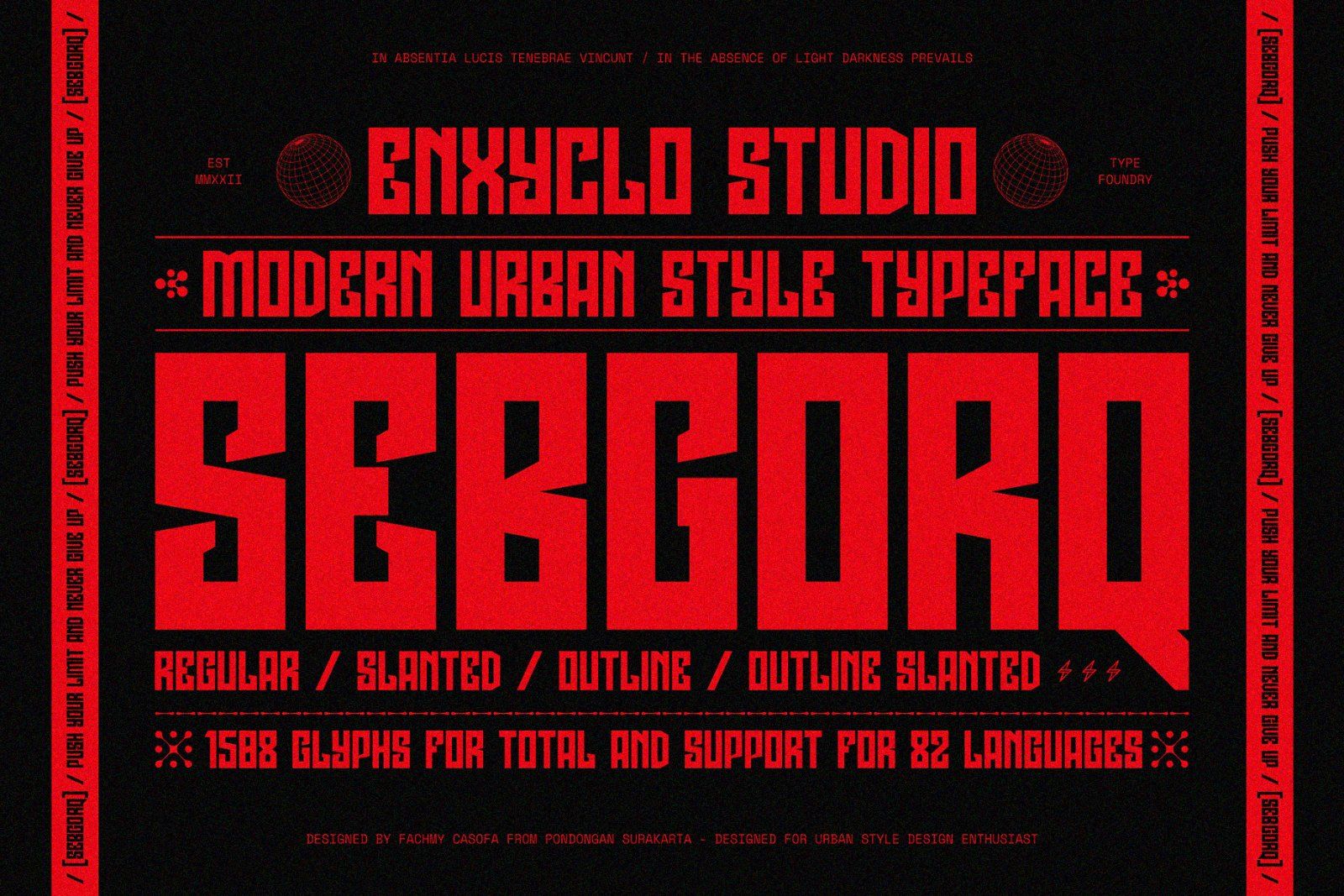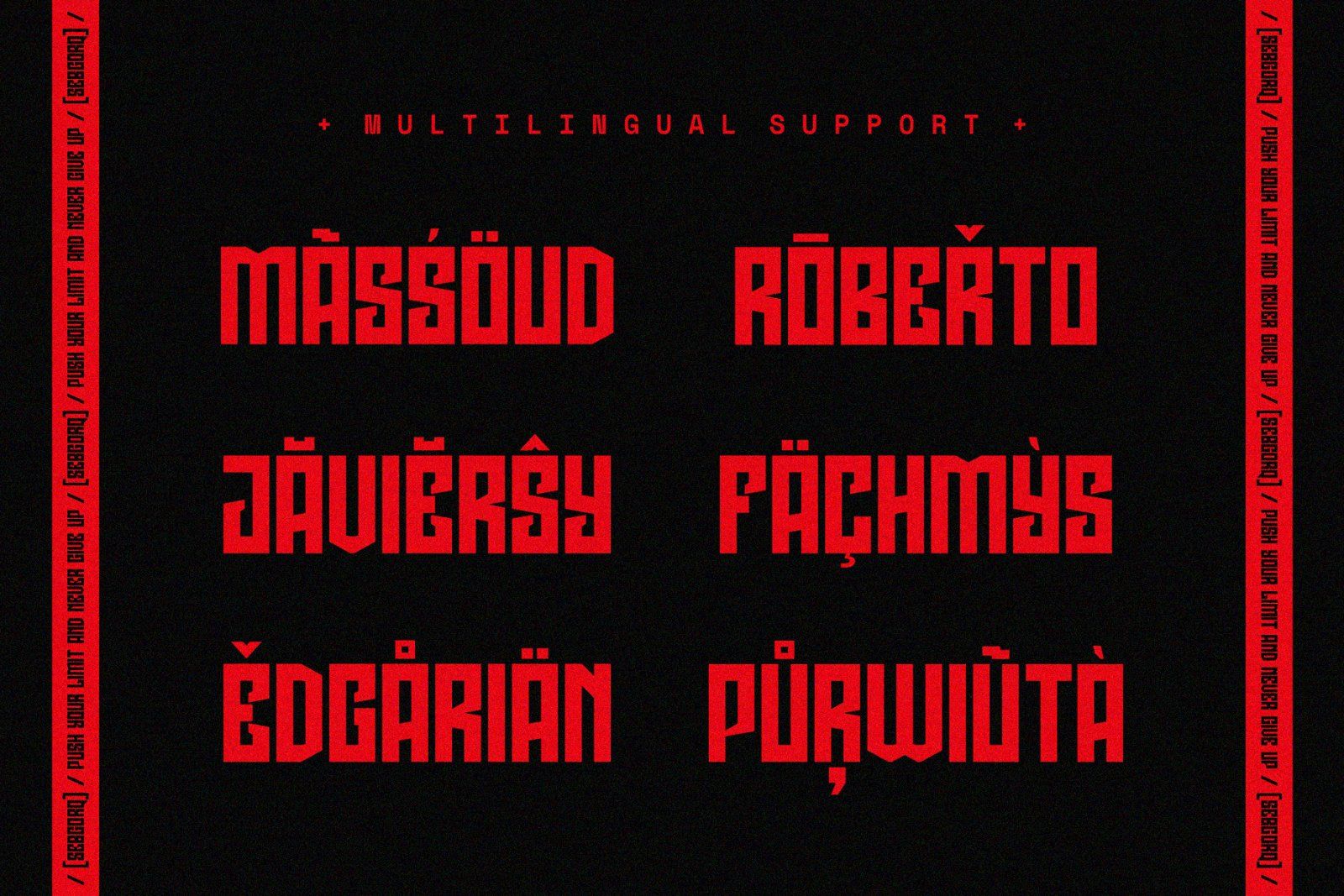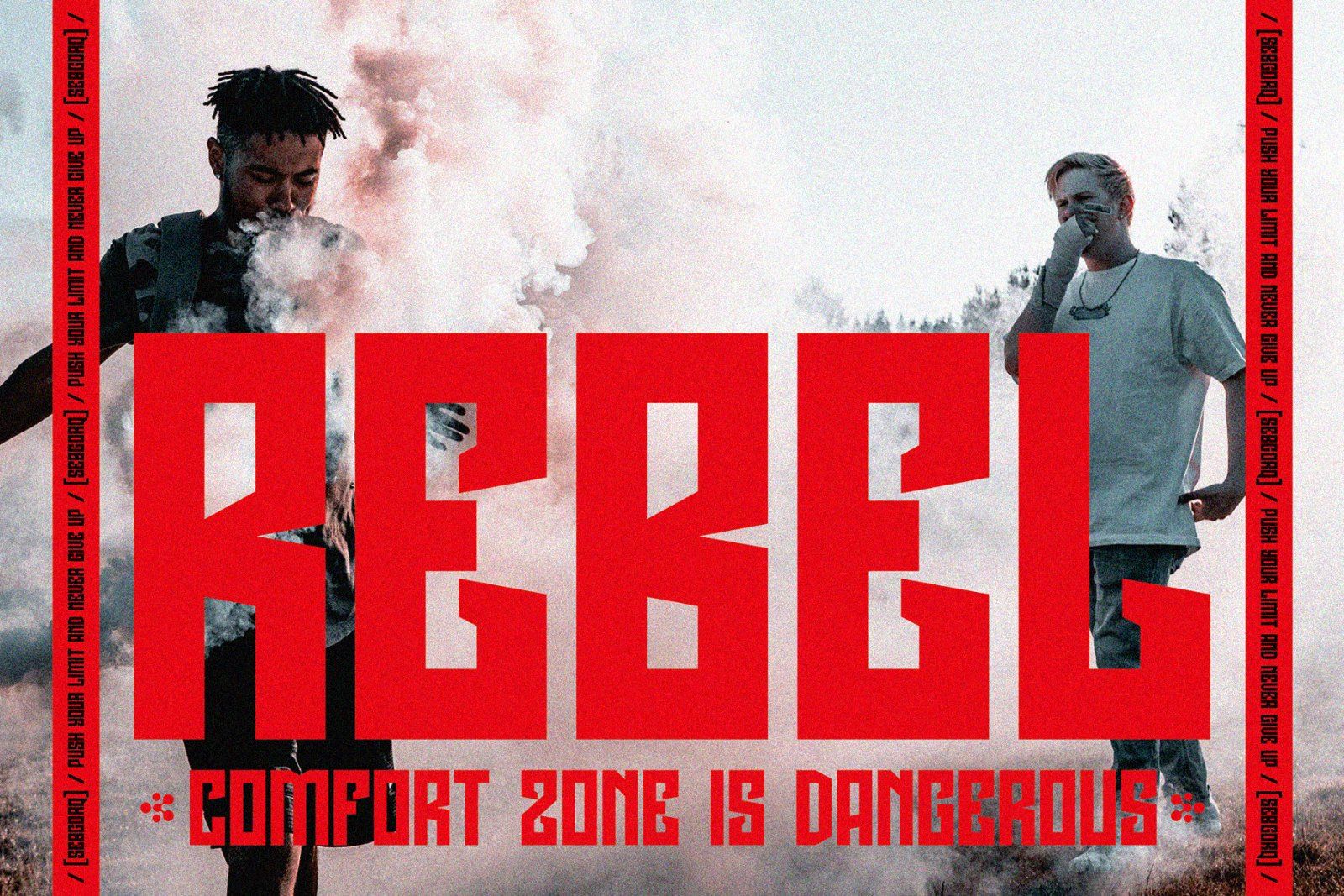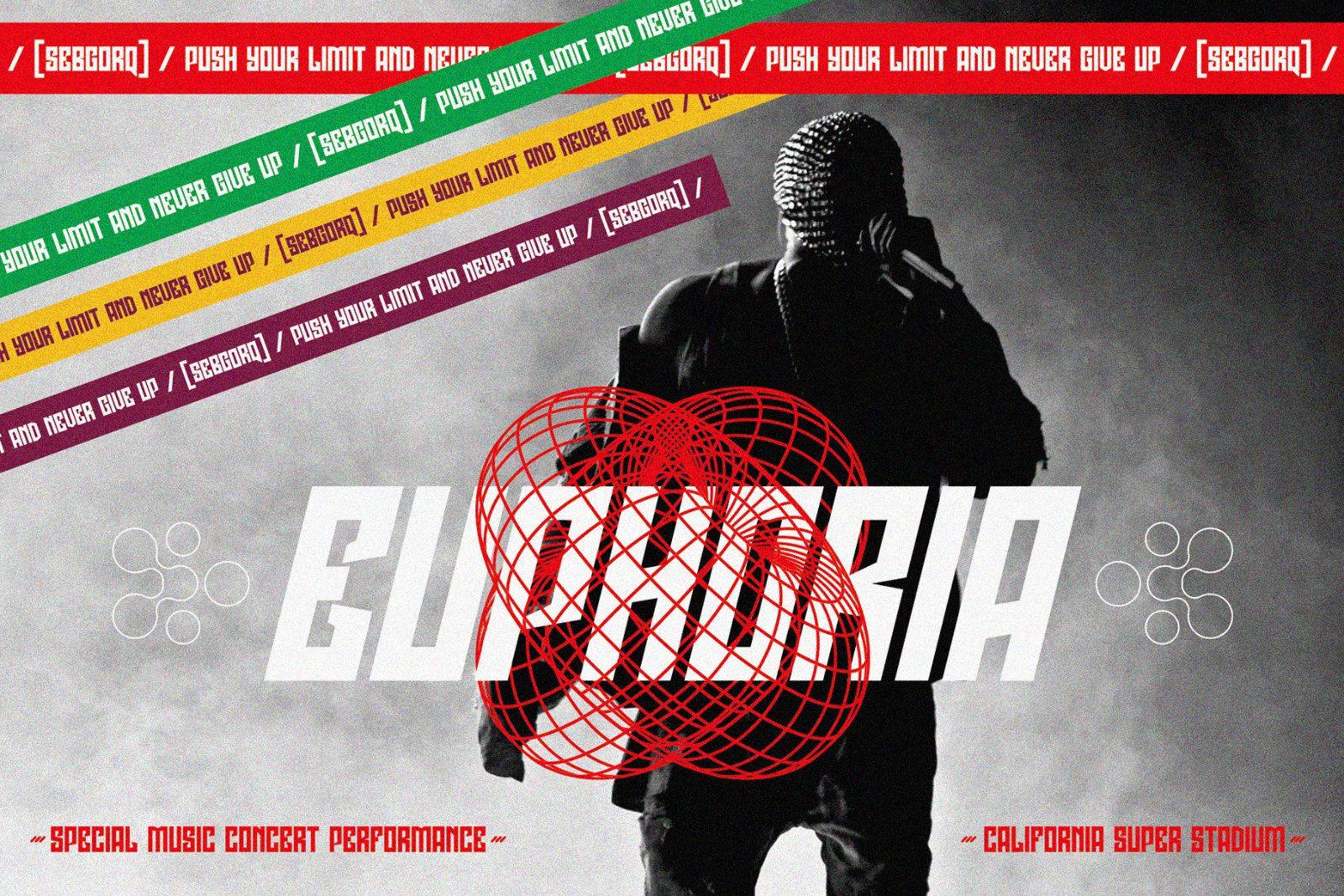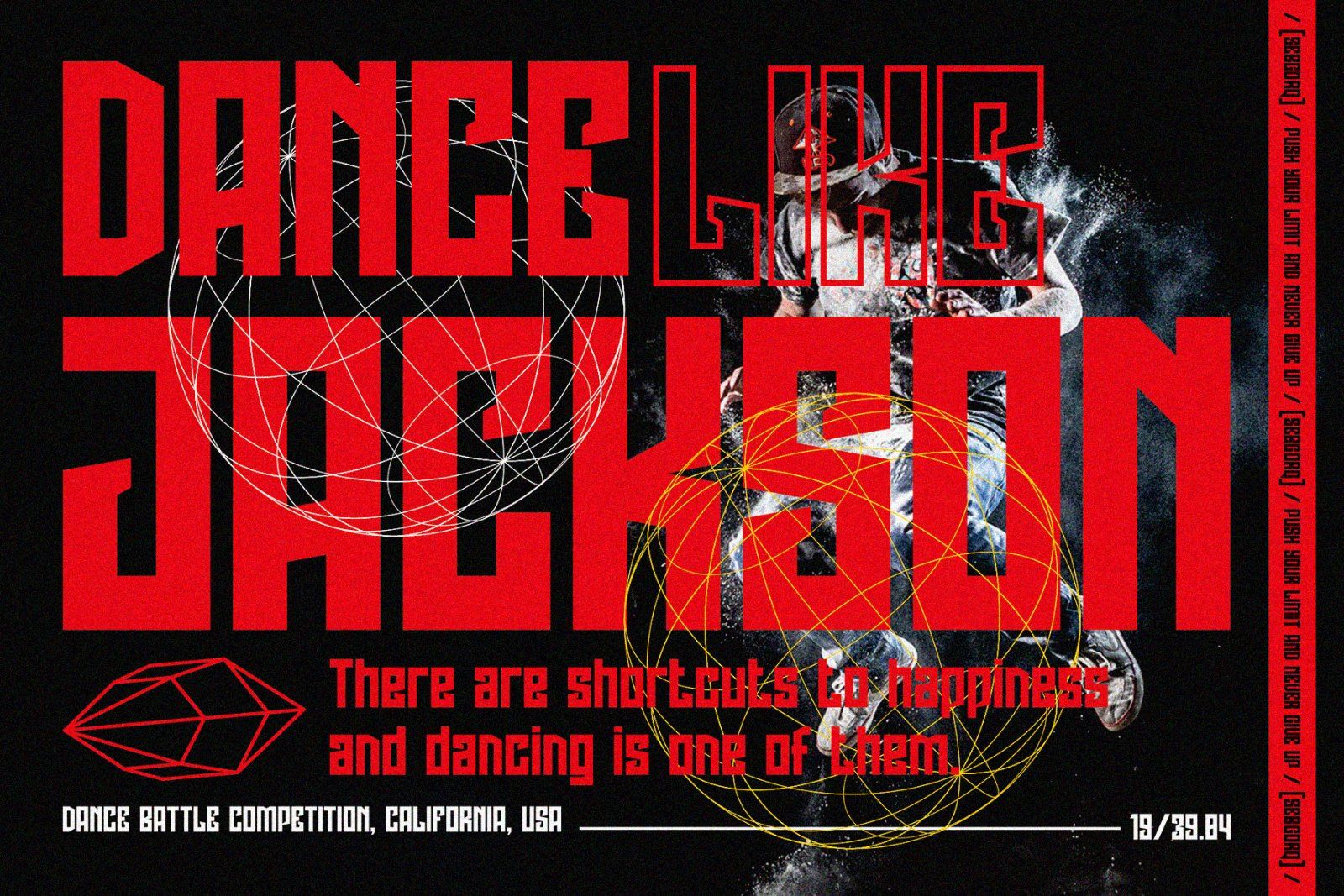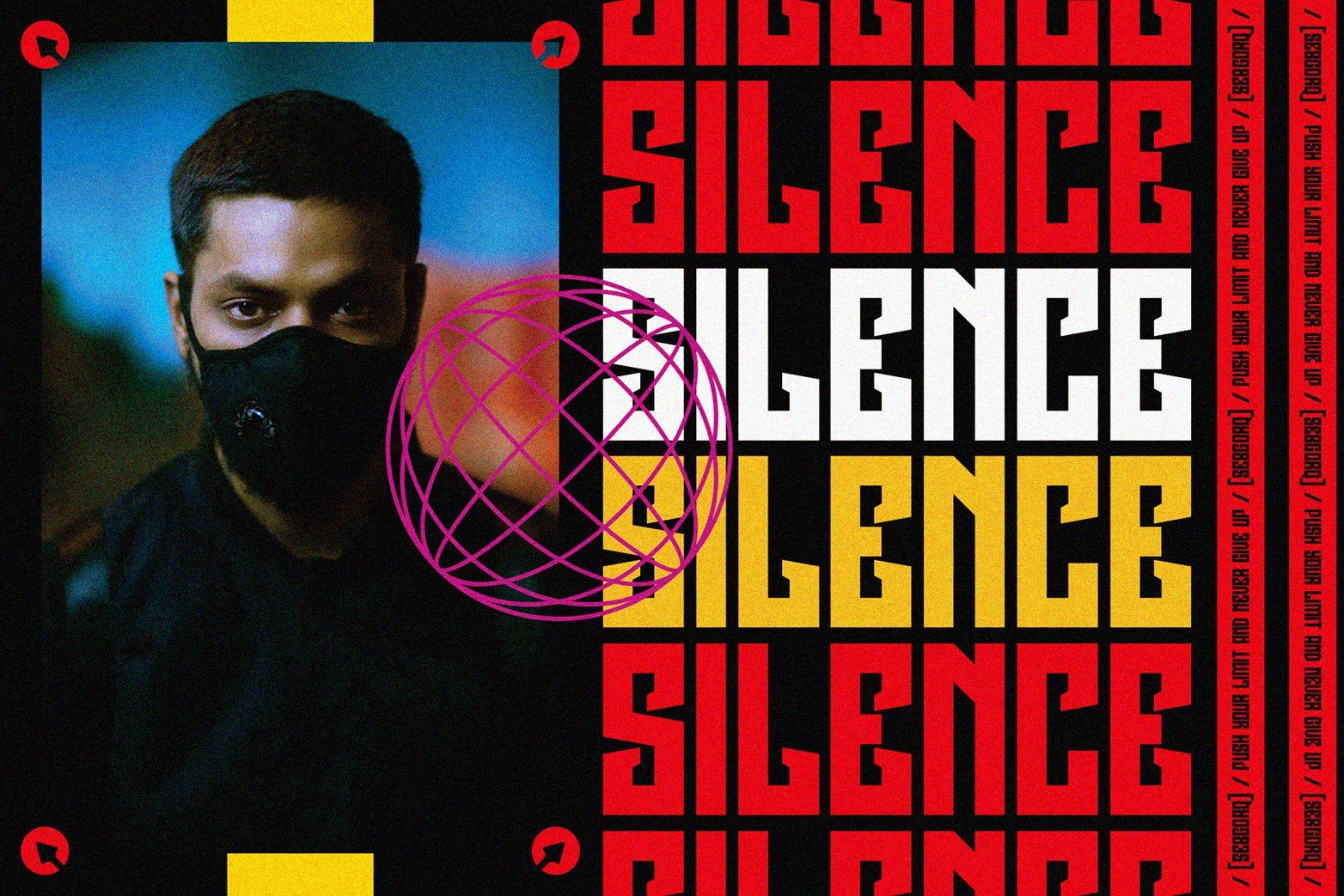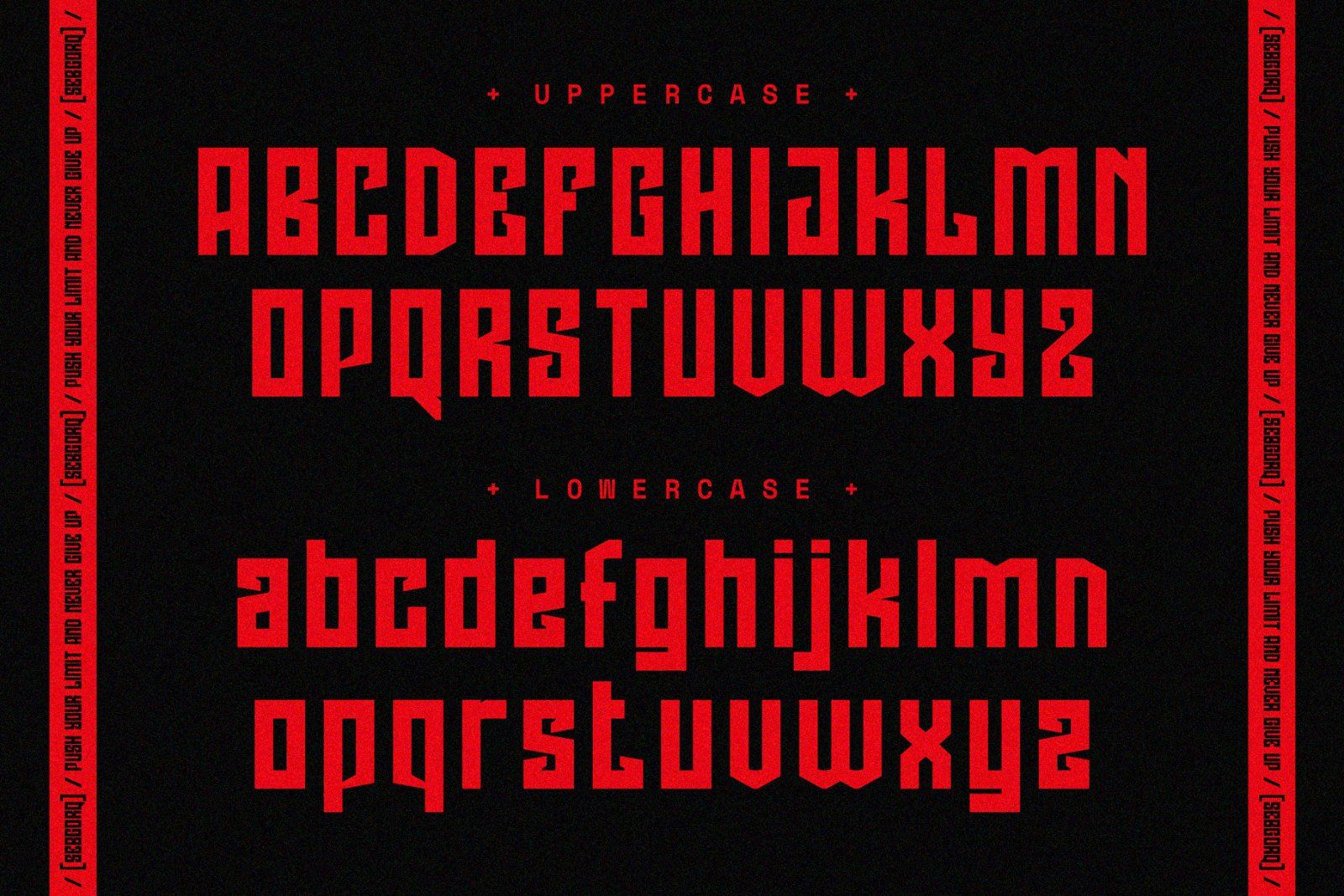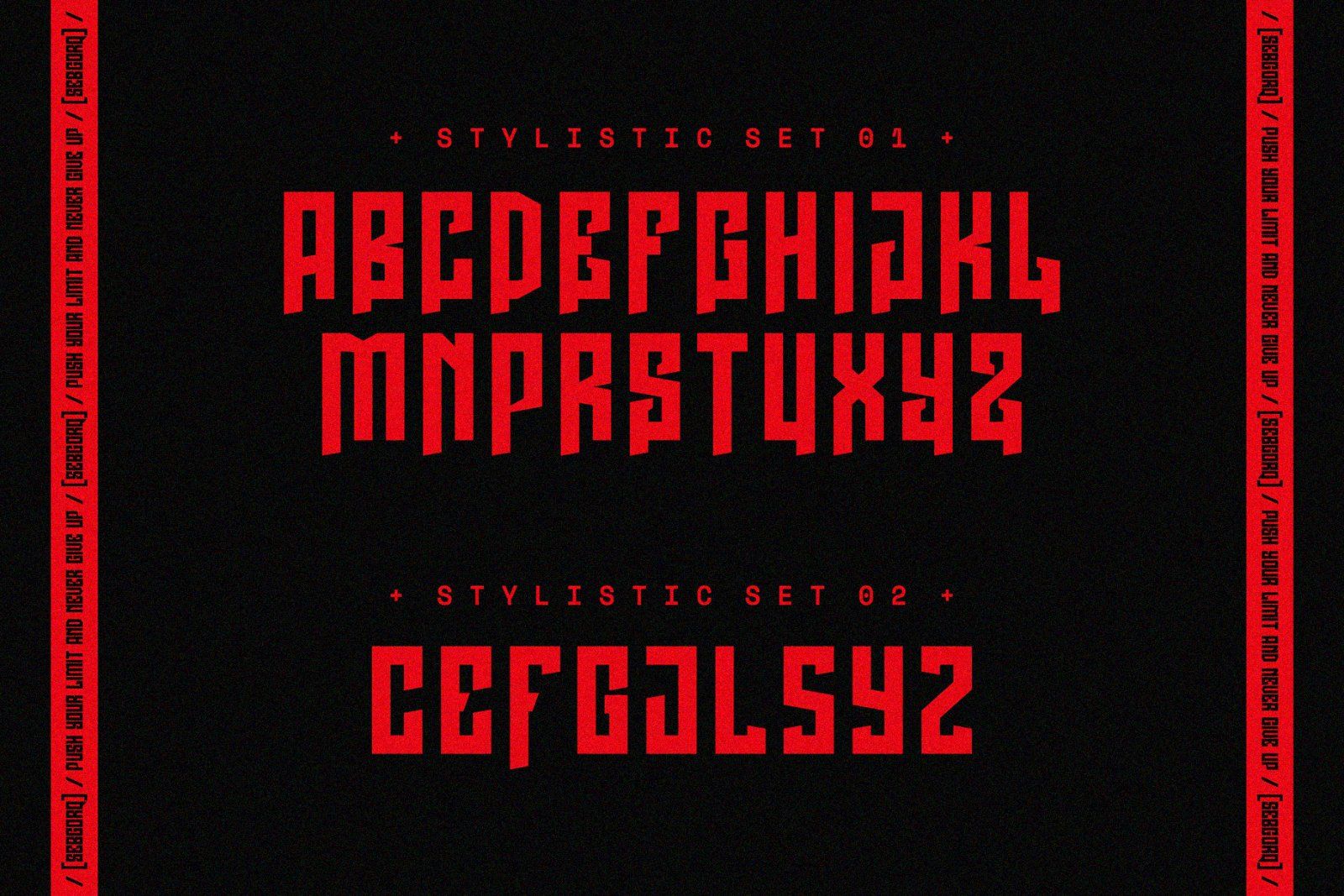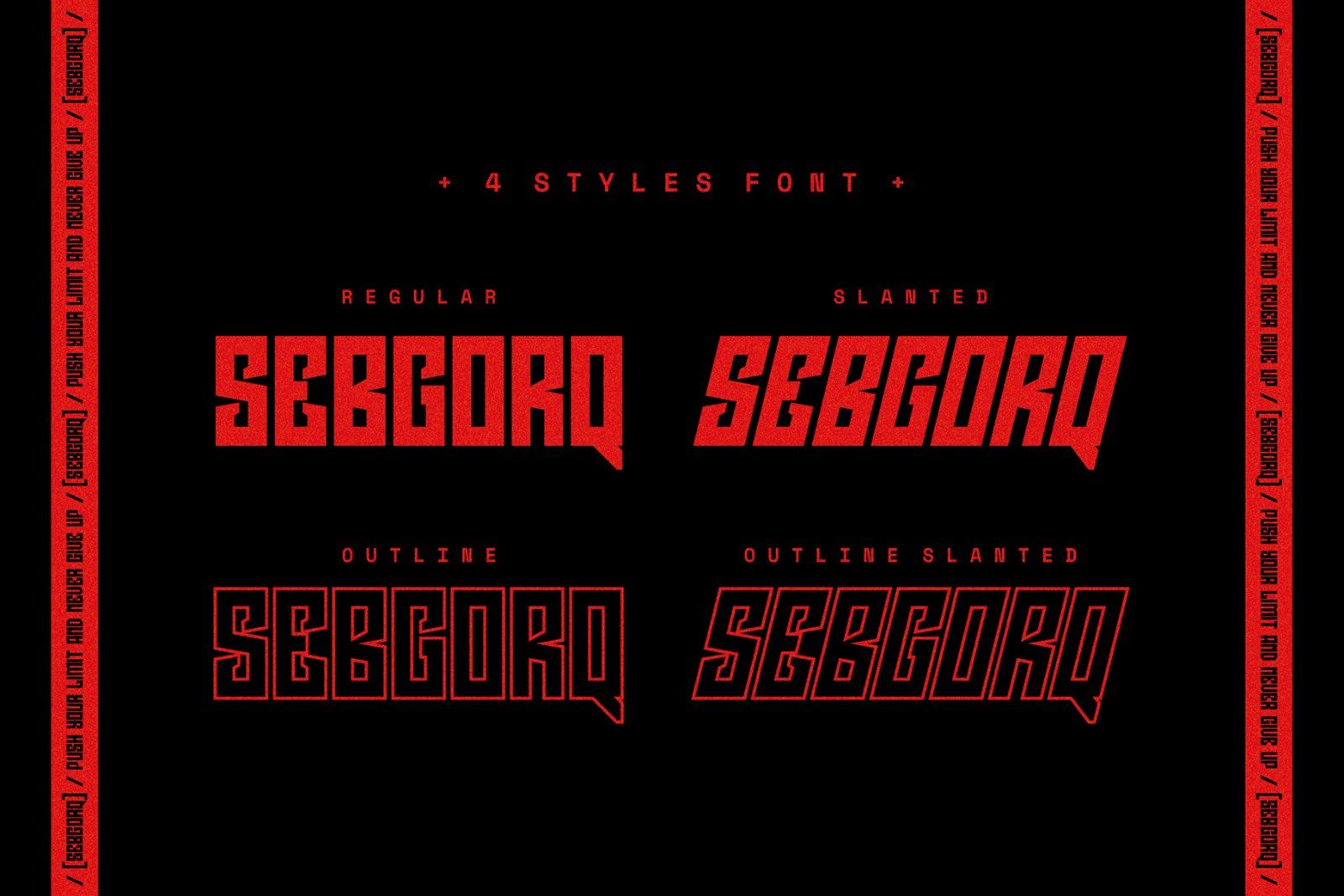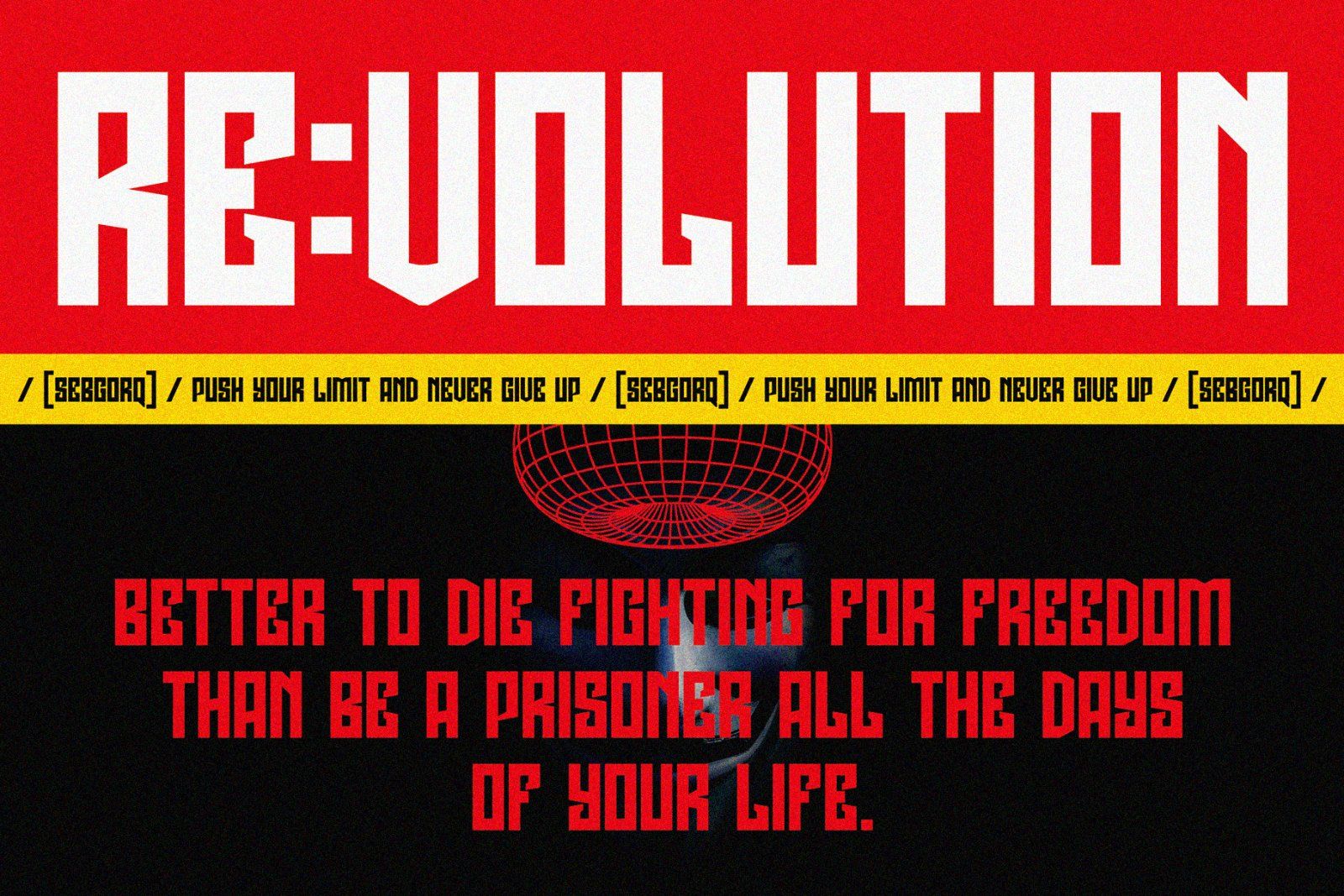
NCL SEBGORQ is a modern urban display font. Masterfully designed to become a true favorite, this font has the potential to bring each of your creative ideas to the highest level! It was purposely crafted to be used in large point sizes, although it doesn’t lose its magic in small point sizes. It is perfect for wedding, headline, billboard, magazines, website, titles, poster, branding, and logos. No matter the topic, this font will be an incredible asset to your fonts’ library, as it has the potential to elevate any creation. With this beautiful font, absolutely you can make your project stand out from the rest.
FEATURES
• 4 Style: Regular, Slanted, Outline, Outline Slanted
• Contains 373 Glyphs for Each Style and 1508 Glyphs for Total
• Numeral, Punctuation & Symbols
• Stylistic Set 1-2